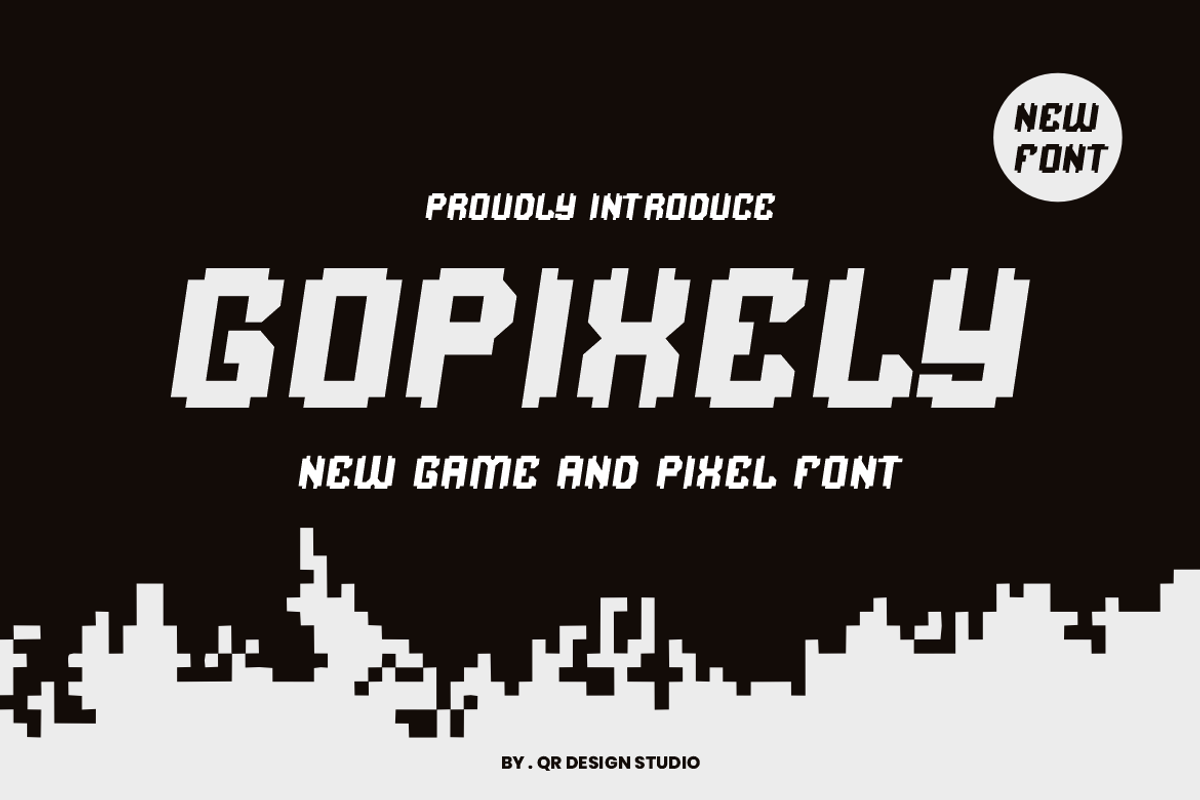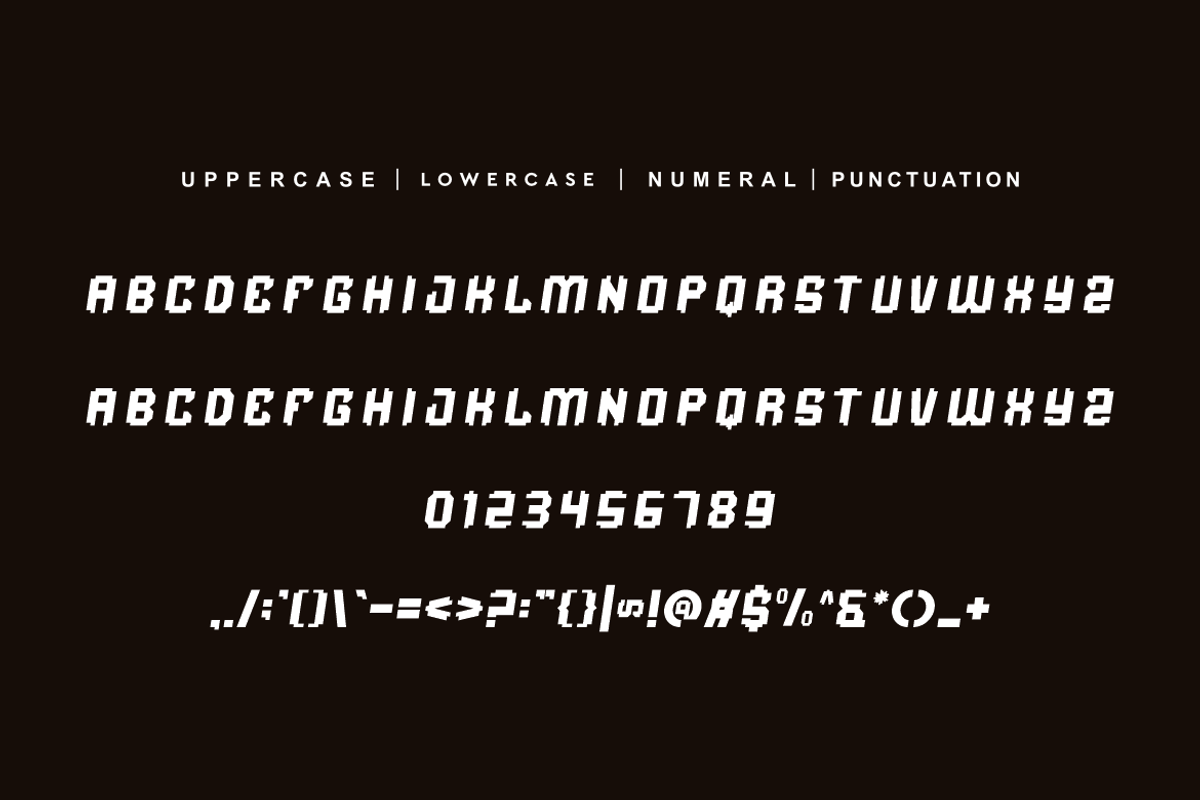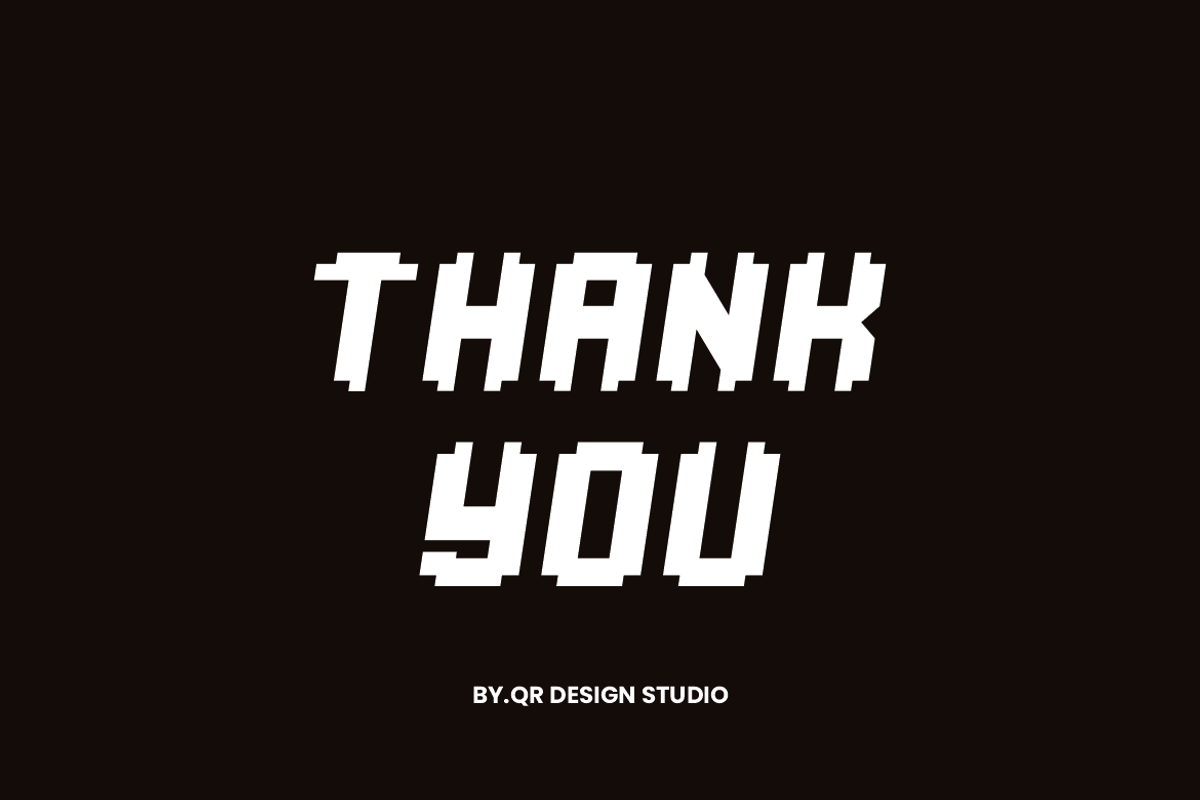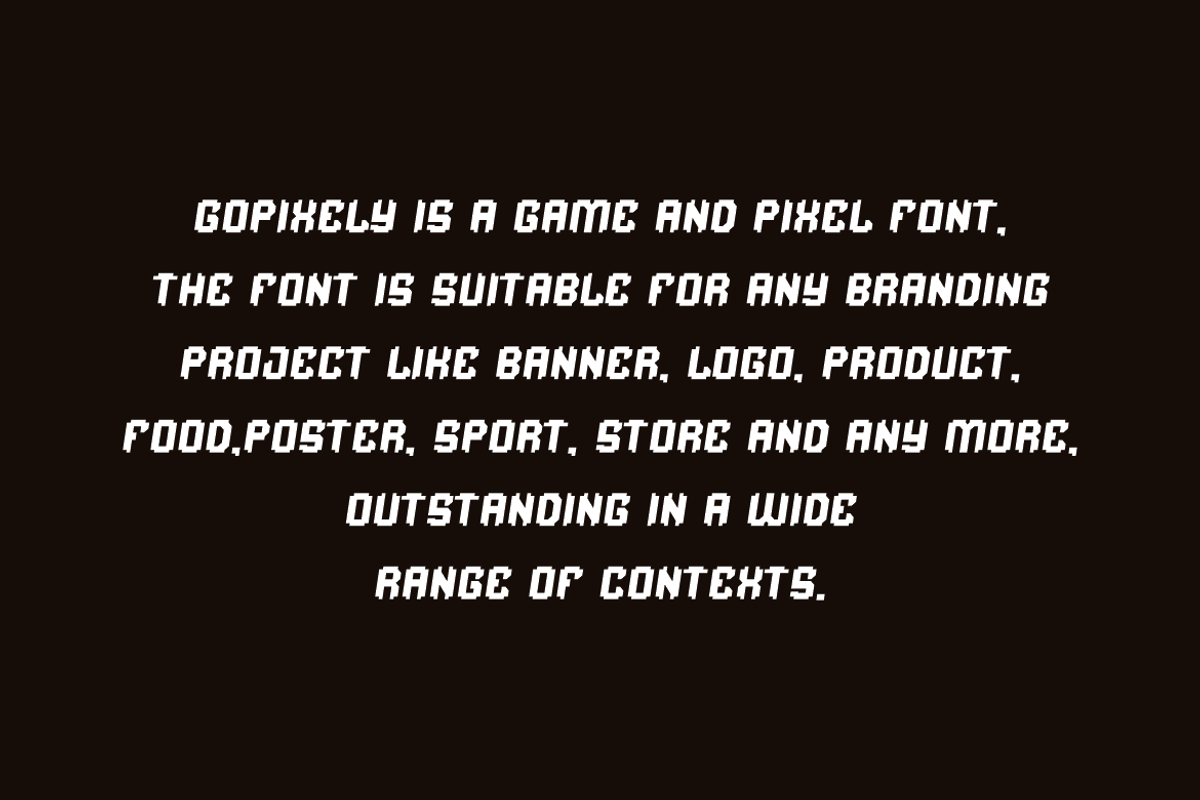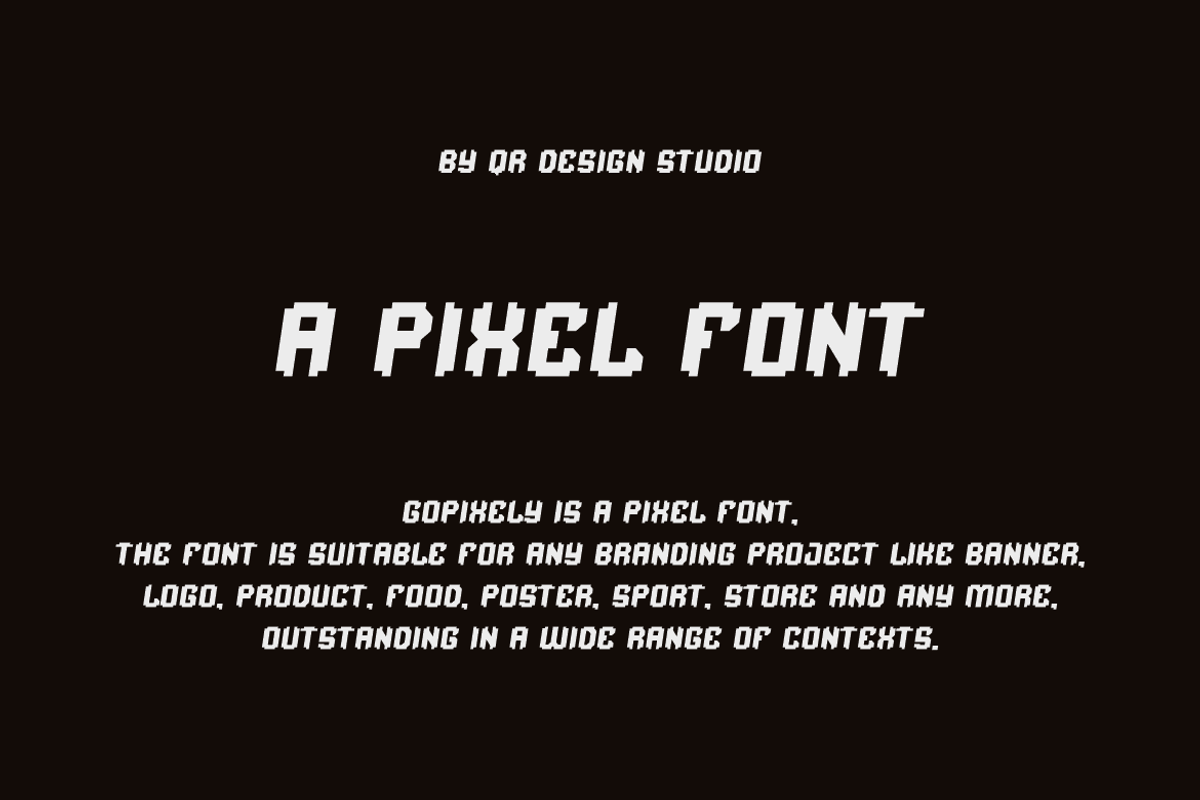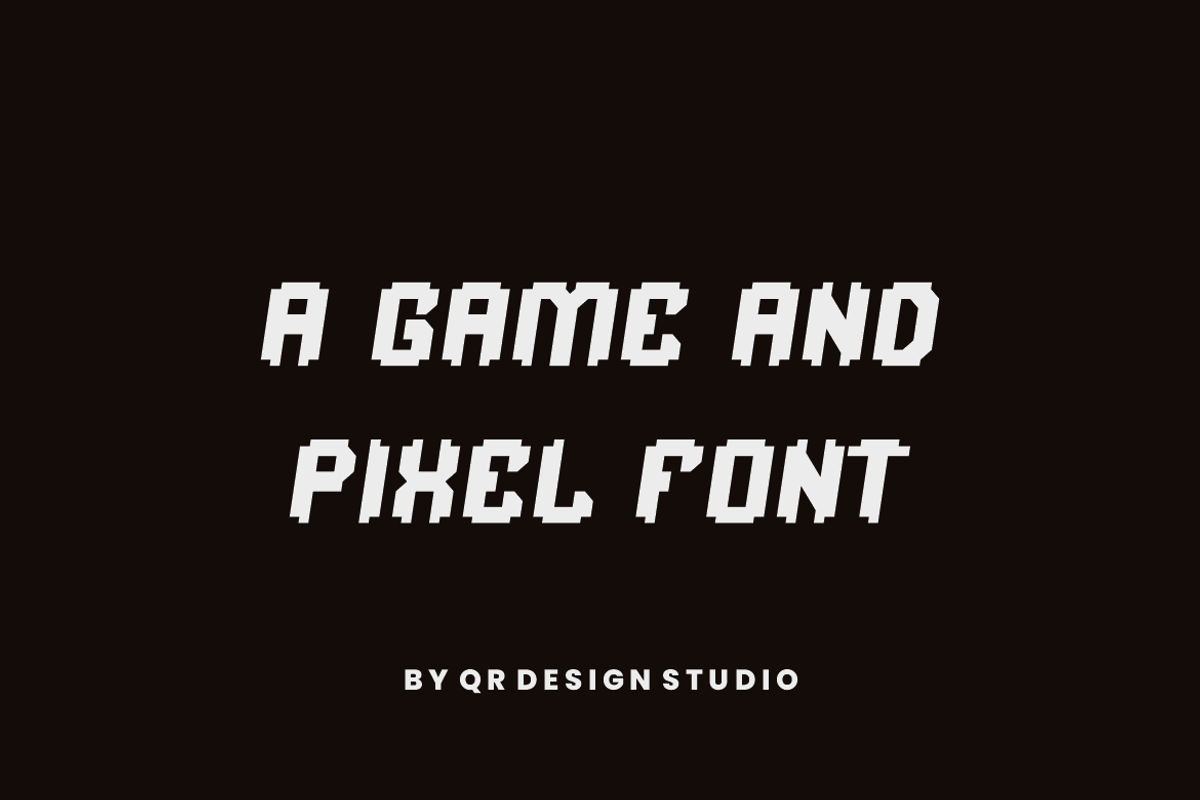
Gopixely - Game & Pixel Font
Gopixely Font is a bold and authentic display font. The font is suitable for any branding project like poster, logo, sport, and many more. Outstanding in a wide range of contexts.